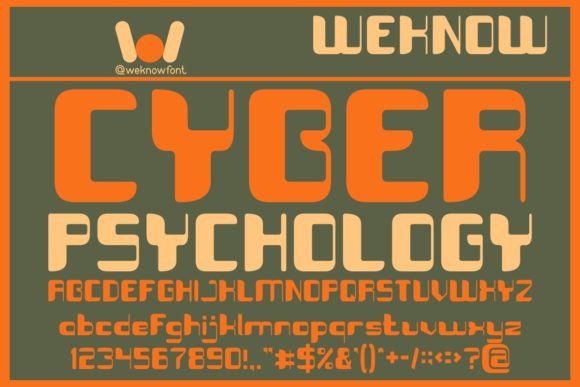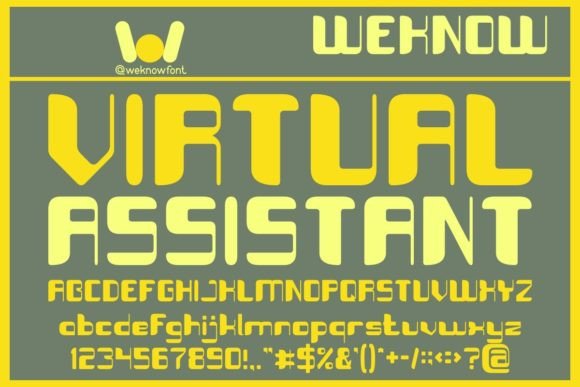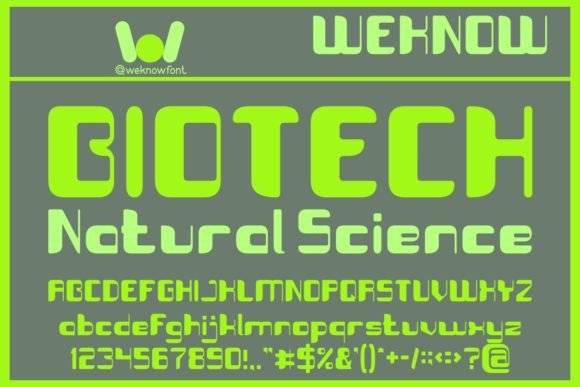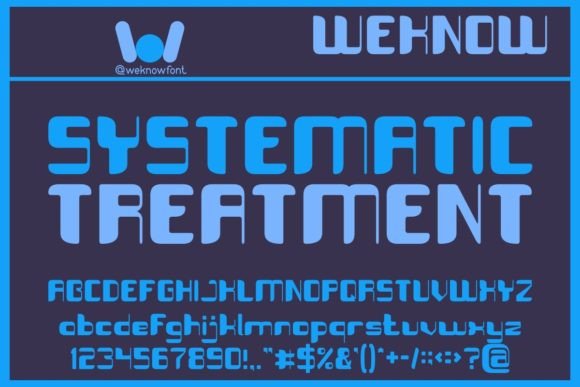
Introducing Artificial Intelligence Font: Revolutionizing Design with Futuristic Flair
In the realm of design, fonts play a pivotal role in conveying messages, evoking emotions, and creating lasting impressions. With the advent of technology, the world of typography has witnessed a significant transformation. One such innovation that has been making waves in the design community is the Artificial Intelligence Font. This techno-sci-fi display font is not just a typographical innovation but a game-changer for designers and crafters looking to infuse their projects with a modern, futuristic touch.
Unleashing Creativity with Artificial Intelligence Font
Artificial Intelligence Font is characterized by its modern and innovative look, making it an ideal choice for a wide array of design projects. Whether you’re working on logos, logotypes, headlines, corporate and brand identity, or venturing into the creative realms of the apparel industry, posters, comics, cartoons, or any other design project, this font is designed to elevate your work. Its futuristic appeal can add a unique edge to your designs, setting them apart in a crowded marketplace.
Key Features of Artificial Intelligence Font
- Modern and Innovative Design: The font boasts a sleek and contemporary design that is sure to capture attention.
- Versatility: Suitable for various design projects including logos, headlines, posters, and more.
- Techno-Sci-Fi Appeal: Perfect for projects that require a futuristic or technological edge.
- High Readability: Despite its futuristic design, the font maintains high readability, making it practical for a range of applications.
Applications of Artificial Intelligence Font
The versatility of Artificial Intelligence Font is one of its most compelling features. Here are some of the areas where this font can make a significant impact:
- Logo and Brand Identity: Create memorable logos and brand identities that stand out.
- Apparel Industry: From fashion labels to tech gadgets, this font can add a cool factor to your products.
- Posters and Advertising: Make your posters and advertisements pop with a futuristic appeal.
- Comics and Cartoons: Add a sci-fi element to your comic and cartoon characters.
- Corporate and Business: Use it for presentations, reports, and marketing materials to convey innovation and forward-thinking.
Tips for Using Artificial Intelligence Font Effectively
While Artificial Intelligence Font offers a plethora of design opportunities, using it effectively requires some finesse. Here are a few tips:
- Pair with Complementary Fonts: Combine it with simpler fonts for body text to create visual hierarchy.
- Experiment with Colors: Take advantage of gradient and color effects to enhance its futuristic appeal.
- Consider Size and Weight: Use different sizes and weights to add depth and emphasis to your designs.
Artificial Intelligence Font is more than just a typographical innovation; it’s a tool that can revolutionize the way designers and crafters approach their projects. With its modern, innovative look and techno-sci-fi appeal, it offers endless possibilities for creative expression. Whether you’re looking to make a bold statement or simply want to add a futuristic touch to your designs, Artificial Intelligence Font is an excellent choice. Embrace the future of design and let your creativity soar with this groundbreaking font.